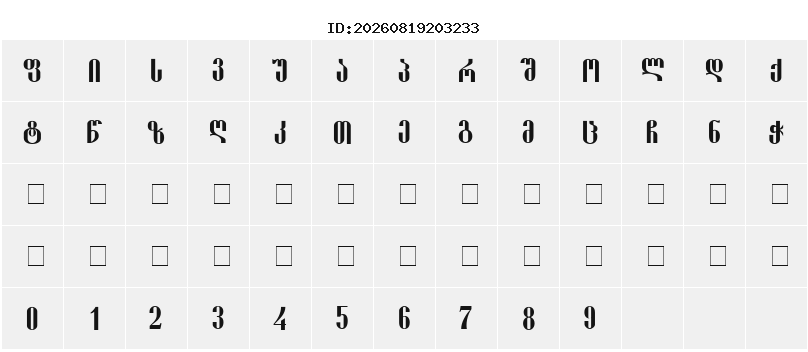
Shemokhmedy-ITV Preview
• Font Name: Shemokhmedy-ITV
• Full Font Name: Shemokhmedy-ITV
• PostScript Name: Shemokhmedy-ITV
• Character Count: 70
About Shemokhmedy-ITV.ttf
Shemokhmedy-ITV.ttf is a modern, elegant sans-serif font designed for ultimate readability and visual harmony. Perfect for branding, headlines, web design, and print materials.